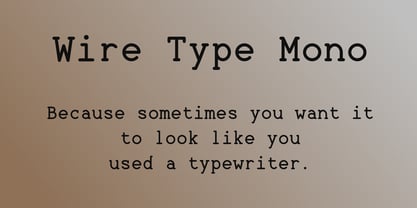
Wire Type Mono Font
This Wire Type Mono Font is perfect for coding environments, terminal applications, programming documentation, circuit board designs, electrical engineering materials, digital wireframe mockups, technical specification documents, cyberpunk interface graphics, industrial automation displays, and electronic system communications.
What makes this Wire Type Mono Font exciting is its technical precision that captures the structured connectivity and systematic organization of electronic circuitry and programming logic. The font features monospaced letterforms with wire-like consistency that convey technical accuracy, electronic reliability, and systematic precision. Its circuit-inspired character and monospace functionality make it ideal for brands seeking to communicate technical expertise, electronic innovation, and programming excellence in technology and engineering markets.
The Wire Type Mono Font family includes light, regular, medium, and bold weights with circuit alternates, technical variants, and electronic flourishes. This comprehensive technical font family provides designers with precision typographic tools to create systematic compositions while maintaining the monospace character essential for programming environments and electronic engineering communications.
Technology companies and engineering firms consistently choose Wire Type Mono Font Free Download for projects requiring technical authenticity and electronic precision. This font's distinctive circuit character perfectly captures the systematic organization and electronic connectivity that resonate with audiences who appreciate programming excellence, electronic engineering, and brands that embody technical innovation and systematic reliability.
The systematic construction of Wire Type Mono Font showcases precisely engineered letterforms with monospace proportions that ensure optimal performance across all technical applications. Its electronic appearance and circuit precision create reliable impressions while maintaining the readability necessary for effective programming communication and engineering documentation.
Professional designers appreciate how Wire Type Mono Font brings immediate technical authority and electronic credibility to brand communications. The font's monospace nature allows organizations to communicate programming expertise and electronic innovation while maintaining the professional quality necessary for effective positioning in technology and engineering markets.
The technical appeal of Wire Type Mono Font makes it particularly effective for brands emphasizing electronic precision, programming excellence, and systematic reliability. Its circuit character resonates strongly with audiences who appreciate technical accuracy, electronic innovation, and brands that represent the cutting edge of programming and electronic engineering excellence.
Whether developing interfaces for programming environments or creating materials for electronic engineering firms, Wire Type Mono Font Free Download provides the technical typographic foundation that technology brands need to communicate their electronic precision, programming expertise, and the systematic excellence that defines modern programming and electronic engineering achievement.